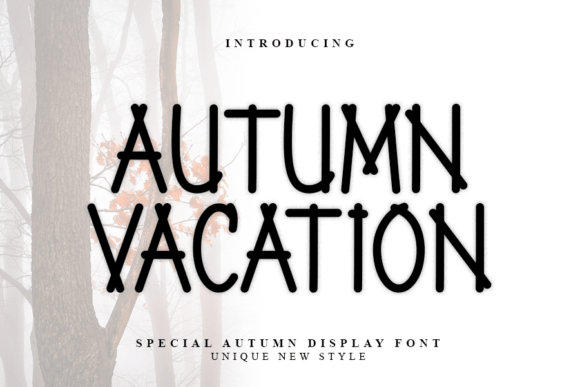
Introducing Autumn Vacation Font - The Enchanting Sans Serif Font for Your Creative Journey
Step into the realm of typography with Autumn Vacation, a captivating sans-serif font that exudes grace, modernity, and versatility. This meticulously crafted font boasts a unique charm that adds a touch of elegance to any project.
With its clean lines and sophisticated curves, Autumn Vacation is the perfect choice for those seeking a font that reflects their individuality and discerning taste. Whether you're designing for a wedding backdrop, crafting personalized greeting cards, or creating eye-catching presentations, this font will leave a lasting impression.
Autumn Vacation's versatility extends beyond its visual appeal. It seamlessly adapts to a wide range of design aesthetics, from classic and traditional to contemporary and minimalist. Unleash your creativity and let this font become your trusted companion in all your design endeavors.
As a font designer, I pour my heart and soul into each creation, ensuring that it possesses both aesthetic beauty and practical functionality. Autumn Vacation is no exception. Its clean and legible letterforms ensure readability even at small sizes, making it ideal for both digital and print applications.
Join the growing community of designers, crafters, and creative professionals who have embraced Autumn Vacation's allure. Let this font become your muse and elevate your designs to new heights.
With Autumn Vacation, the possibilities are endless. Let your imagination soar and let this font guide you towards creating designs that captivate and enchant.